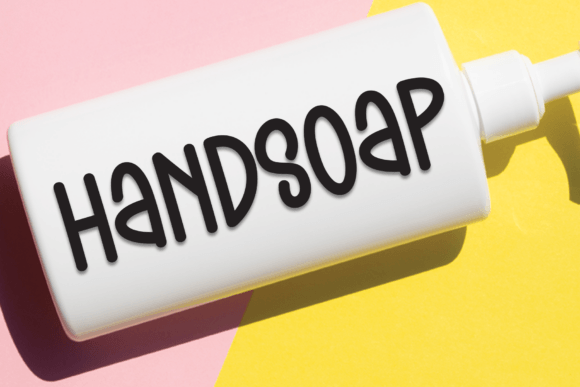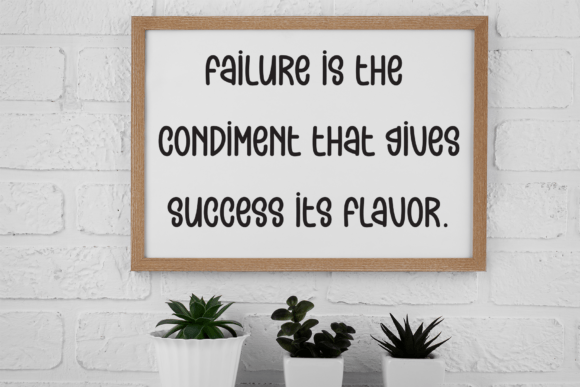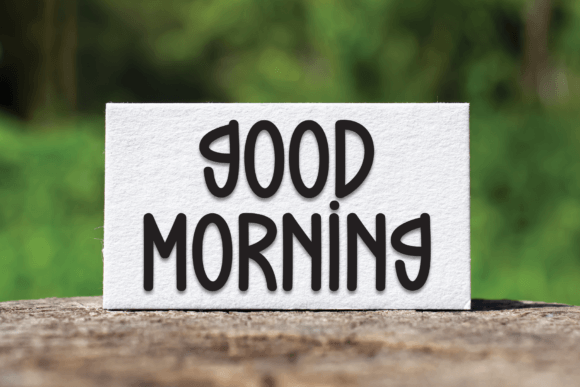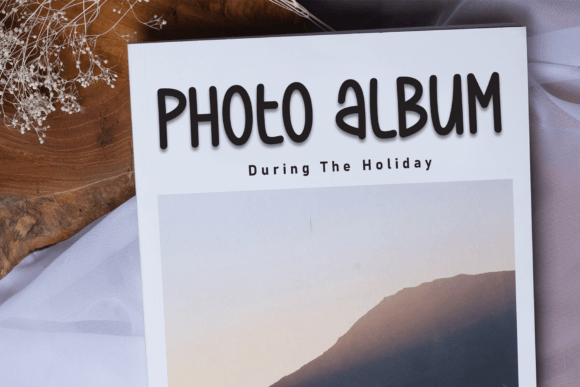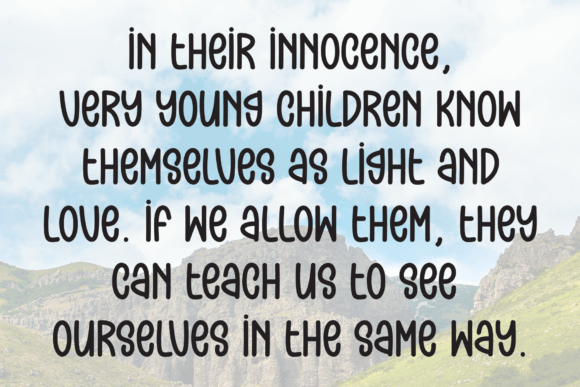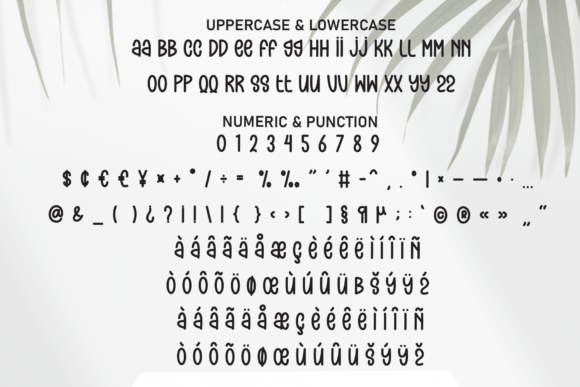
Introduction to Quick Side Font
As a designer, there’s nothing quite like the thrill of bringing a creative project to life. It’s the moment when all the pieces come together, and you see your vision take shape. But sometimes, all it takes is that one special font to elevate your design from good to great. That’s where Quick Side Font comes in – a charming, handwritten display font that radiates warmth and friendliness, making it the perfect addition to any design.
With its dreamy design and effortless charm, Quick Side Font is a valuable resource for designers looking to add a delightful touch to their projects. Whether you’re working on a wedding invitation, a birthday card, or any other creative project, this font promises to transform your designs into powerful statements while preserving the essence of playful creativity. And the best part? It’s available for free download, complete with a transparent background, making it easy to integrate into your high-quality designs.
Key Features of Quick Side Font
- High-quality design resource with a unique, creative style perfect for various projects
- Perfect for use in creative projects, such as graphic design, digital art, and web design
Honest Review: Quick Side Font
As a designer, I’m always on the lookout for high-quality fonts to enhance my creative projects. I recently came across the Quick Side Font, and I have to say, it’s a great addition to any design resource.
What works well: ✨ The font has a modern and sleek design that’s perfect for projects that require a touch of sophistication. The transparent background option makes it easy to layer over other design elements, and the free download is a huge bonus. I also appreciate the wide range of character sets and styles available.
What could be improved: ⚠️ While the font is high quality, I did notice some limitations in terms of customizability. The font is not as flexible as some other options, and it can be tricky to adjust the spacing and alignment. Additionally, some of the character sets may not be compatible with older systems.
Overall, I’m impressed with the Quick Side Font and would definitely recommend it to designers looking for a clean and modern font for their creative projects. It’s a great free download that’s sure to enhance any design.
Pros:
- Modern and sleek design
- Wide range of character sets and styles
Cons:
- Limited customizability
- Some character sets may not be compatible with older systems
Quick Side Font
Tips for Getting the Most Out of Quick Side Font
Experiment with different font sizes and styles to create a unique look. Use the font in combination with other design elements, such as images or graphics, to add depth and interest to your design.
The Quick Side Font is ideal for a variety of creative projects, including:
- Typography
Alternatives to Quick Side Font
Open Sans Font is a popular, high-quality design resource ideal for creative projects. It features a clean and transparent background, making it perfect for web and mobile applications. Open Sans Font is free to download and can be used in various contexts, including headings and body text.
When to use: Open Sans Font is suitable for projects that require a modern and clean look. It is an excellent alternative to Quick Side Font for designers who prefer a more neutral and professional tone.
Comparison: Open Sans Font is more versatile than Quick Side Font, with a wider range of font sizes and styles available. While Quick Side Font has a more playful feel, Open Sans Font is better suited for projects that require a high level of professionalism.